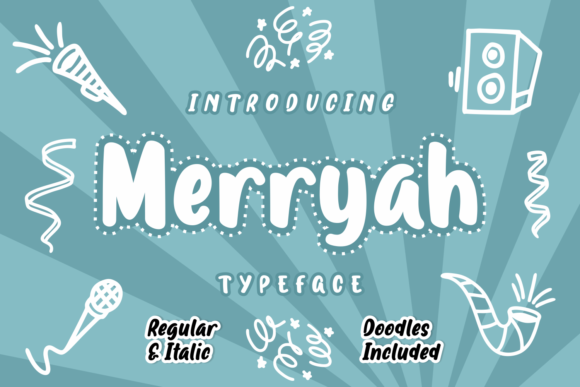
Merryah Font
Step into the world of Merryah Font, a whimsical script font brimming with personality and charm. Crafted by the talented Rifki (7ntypes), this delightful font transports you to a realm of playful creativity.
With its charming characters, Merryah Font dances across the page, captivating your audience with its vivacity. From enchanting invitations to magical branding, this versatile font adds a touch of whimsy to any project.
Available in both regular and italic versions, Merryah Font grants you the power to weave a tapestry of unique designs with just one download. Let your imagination soar as you mix and match these two styles, creating an array of compositions that are sure to leave a lasting impression.
As a special bonus, Merryah Font is accompanied by a treasure trove of delightful doodles, ready to complement your designs with an extra dash of charm and personality. Unleash your creativity and let these playful elements dance across your projects, adding a touch of whimsy that will captivate your audience.
Immerse yourself in the enchanting world of Merryah Font and discover the endless possibilities it holds. From heartfelt letters to enchanting logos, this versatile font is your gateway to a realm of creative expression.
Embrace the magic of Merryah Font today and let your imagination take flight!